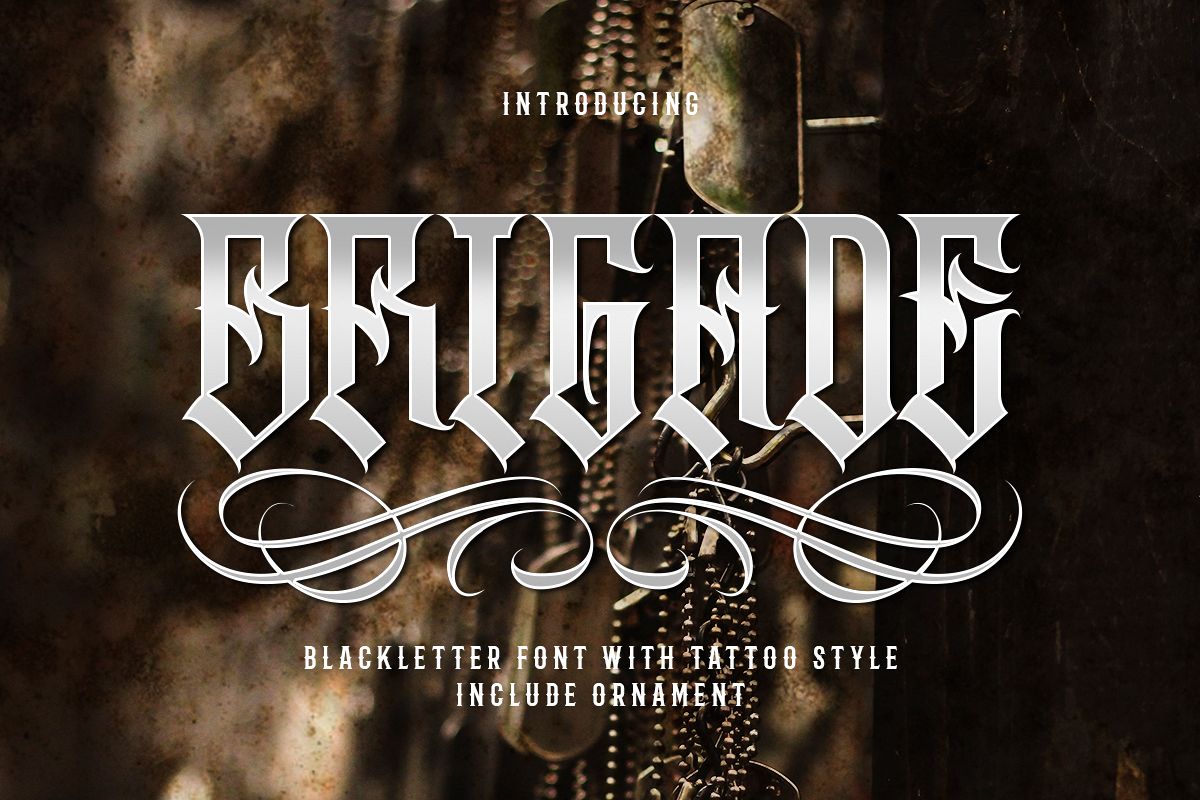
Brigade
Introducing of our new product the name Brigade Font. Blackletter with Tattoo style + ornaments perfect for tattoo design, logo studio tattoo, shirt design,poster, branding, etc.
You can access the Ornament with _1 _2 _3 _4